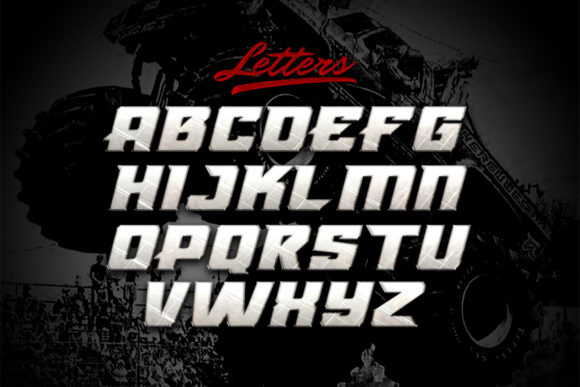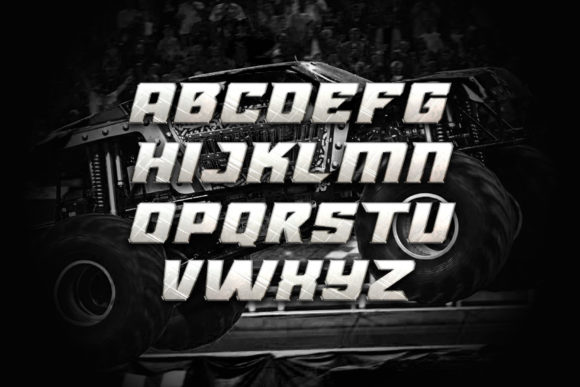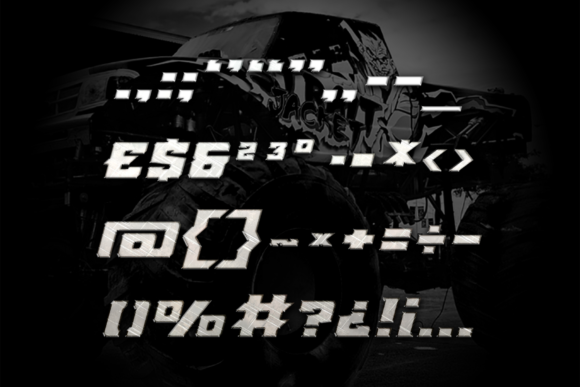
Monster Truck is a cool, bold and modern display font. Add this font to each of your sport or speed related designs and notice how they instantly come to life.
Monster Truck Font